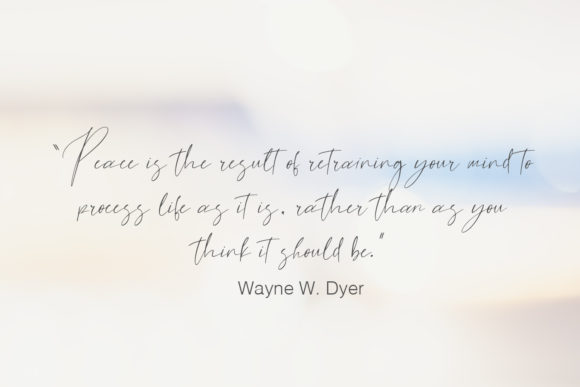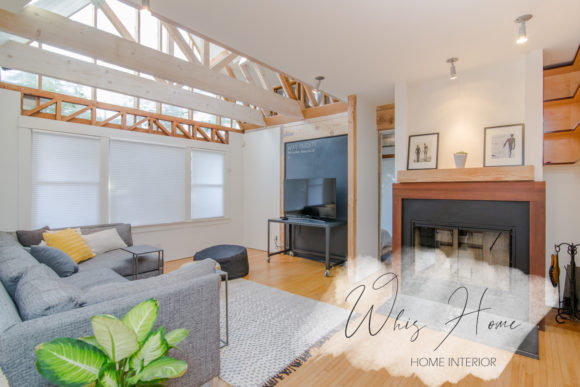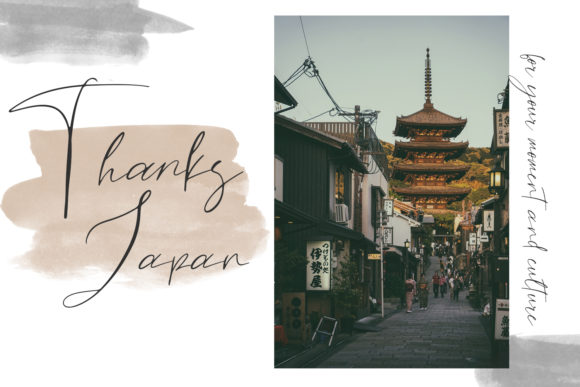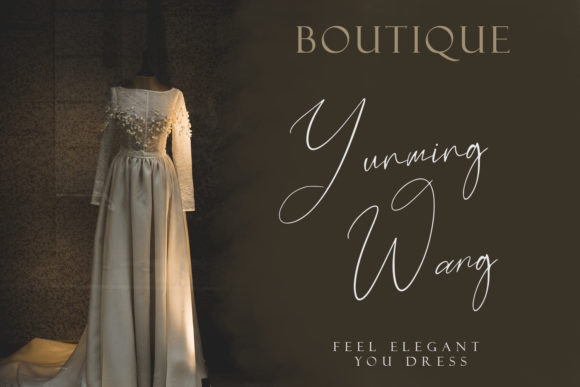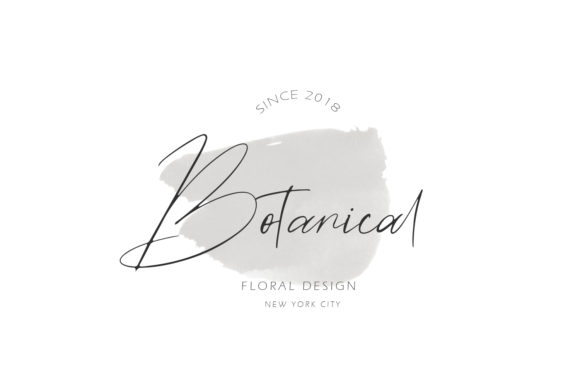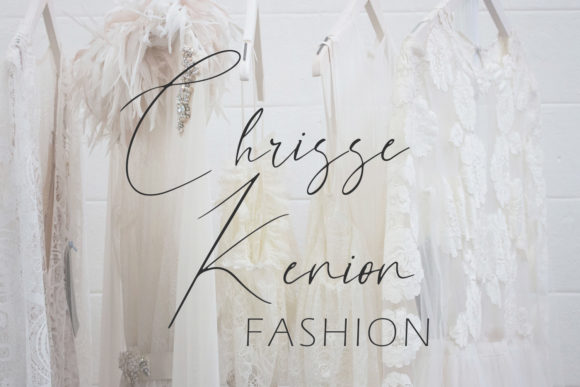
Introduction to Drusella Font
Drusella is an elegant script font with a unique style.
It will add a romantic touch to any crafting project .
Key Features of Drusella Font
Why Choose Drusella Font?
Drusella Font offers exceptional quality and versatility, making it a valuable addition to your design toolkit. Whether you’re creating for personal projects or commercial use, Drusella Font delivers professional results.